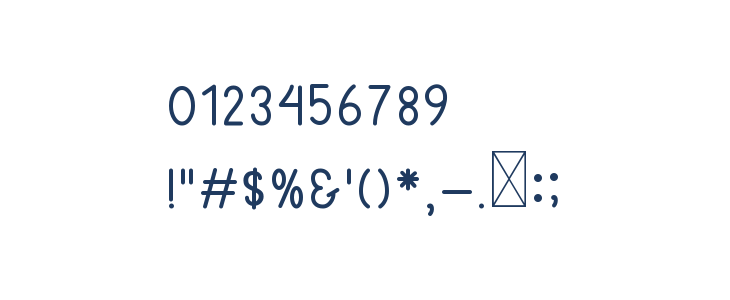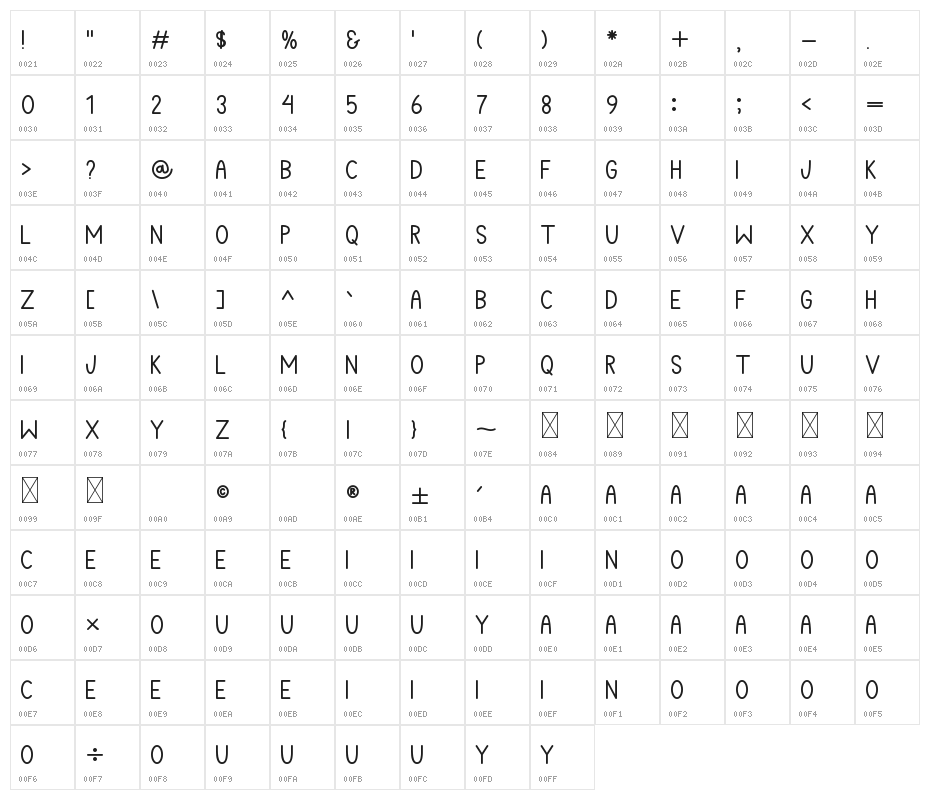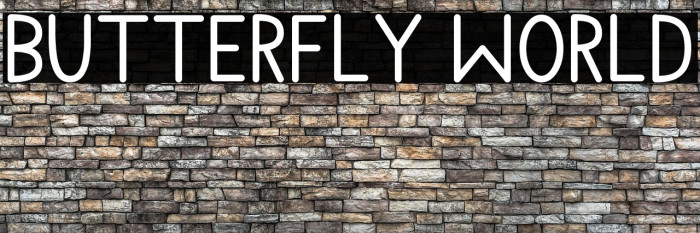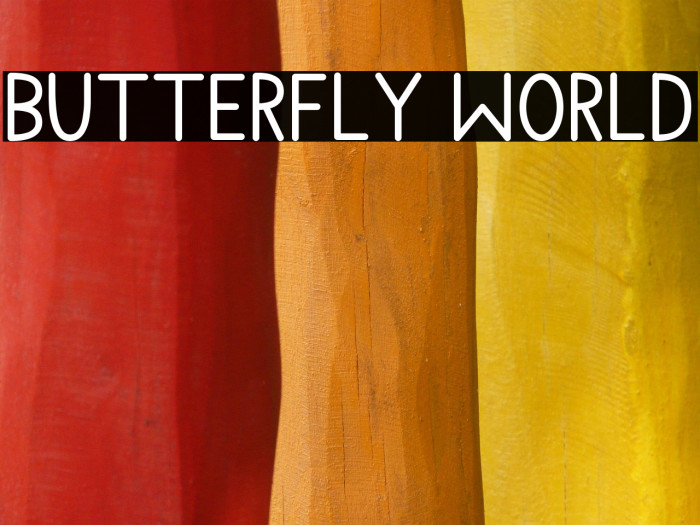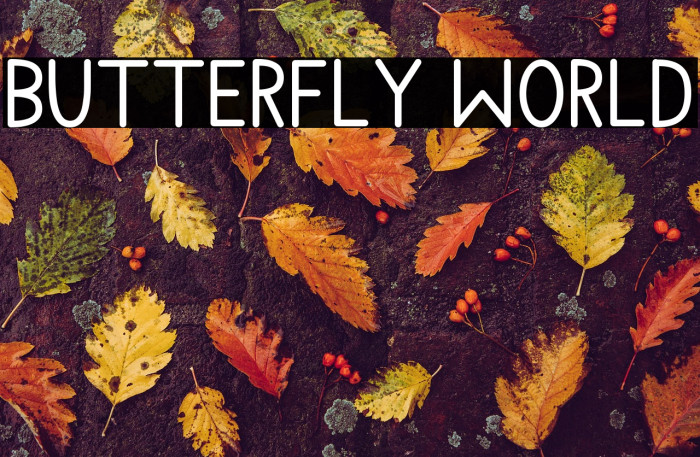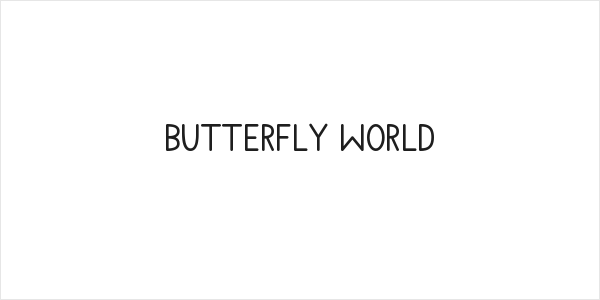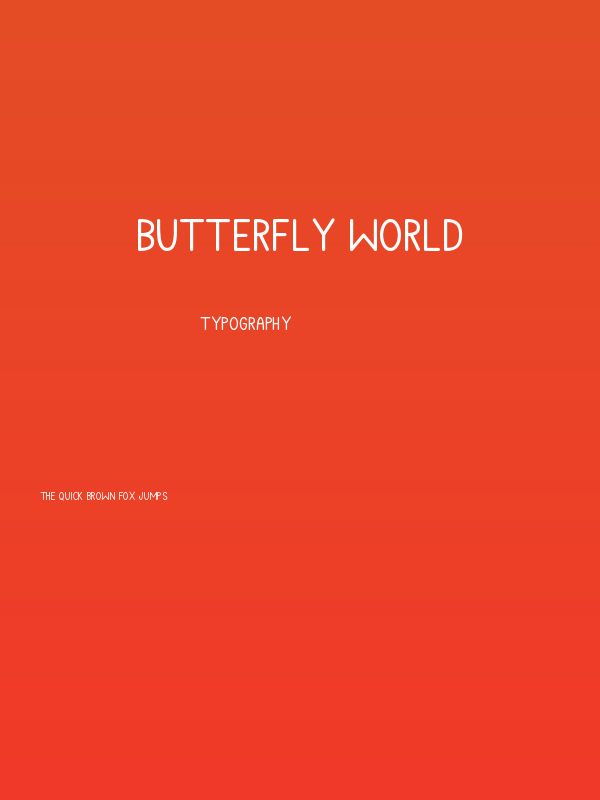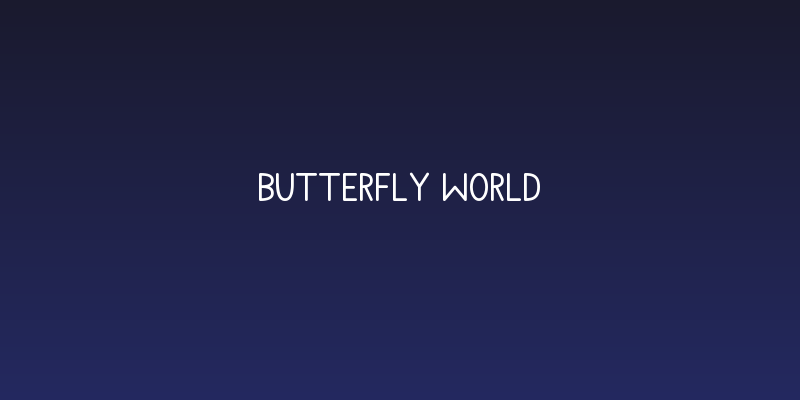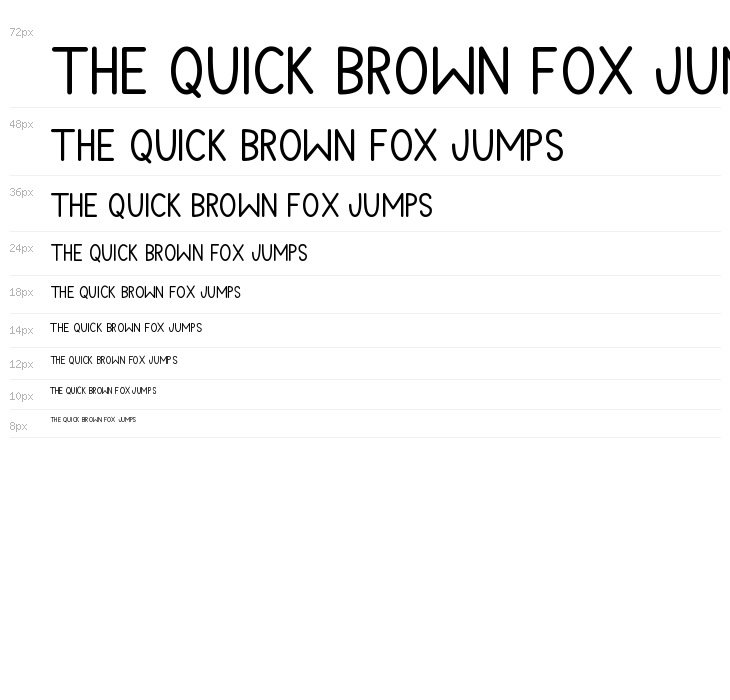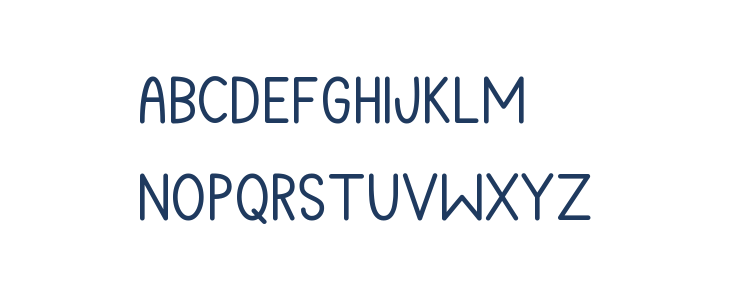
Butterfly World Font
Butterfly World Description
This font features a playful and rounded design, characterized by its smooth curves and friendly appearance. The letters are evenly spaced, providing a clean and approachable look. The uppercase and lowercase letters maintain a consistent style, with slightly exaggerated curves that add a whimsical touch. The numerals and special characters are designed to match the overall aesthetic, ensuring a cohesive appearance across all text. This font is ideal for projects that require a lighthearted and inviting feel, making it suitable for children's books, playful branding, or casual invitations.
| Proposed Projects | Children's books, playful branding, casual invitations, greeting cards. |